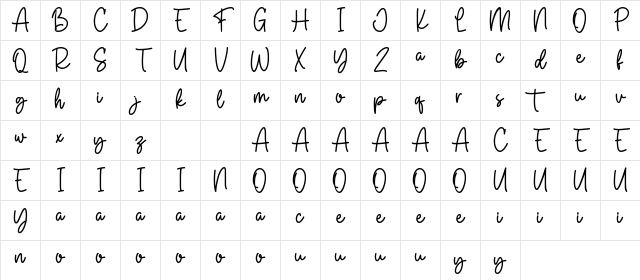
Country Field Regular
Foundry: Graphix Line Studio
Designer: Aldi Raya Pradipta
Design Context for Country Field
Country Field is a composed and adaptable typeface that performs quietly and consistently across a wide range of design contexts.